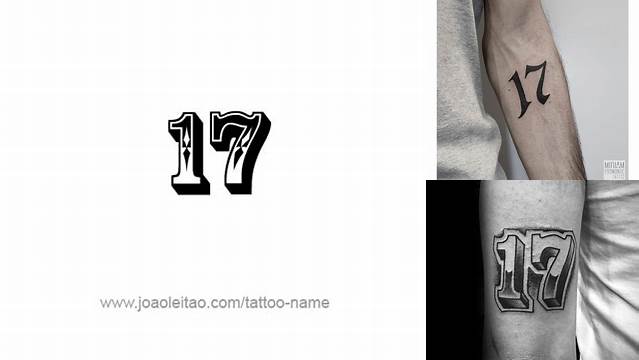
Number 17 Tattoo Designs: Font Ideas & Inspiration
Are you looking for the perfect number 17 tattoo design? Guys, you've come to the right place! Tattoos are a fantastic way to express yourself, and using numbers and fonts adds a layer of personal meaning and style. Number tattoos can symbolize significant dates, personal milestones, lucky numbers, or even just an aesthetic preference. The number 17, in particular, holds different meanings for different people, making it a unique choice for a tattoo. Let's dive into the world of fonts and number 17 tattoo designs and explore how you can create a meaningful and visually stunning piece of body art.
Why Choose a Number Tattoo?
Number tattoos are super versatile and carry deep personal significance. Think about it – numbers are everywhere, representing dates, times, scores, and so much more. When you get a number tattoo, you're not just inking a digit on your skin; you're embedding a memory, a belief, or a personal connection. The number 17 could represent a birthday, an anniversary, a lucky number, or even a significant date in your life. The beauty of a number tattoo lies in its simplicity and the depth of meaning it holds for you. Plus, adding a cool font can elevate your tattoo from simple to spectacular.
The Significance of the Number 17
The number 17 is often associated with independence, self-reliance, and a strong will. It can also symbolize new beginnings and the pursuit of dreams. In numerology, 17 is seen as a powerful number that combines the energies of 1 and 7. The number 1 represents leadership and initiative, while 7 signifies introspection and wisdom. Together, they create a number that embodies both action and thought. For many, choosing 17 as a tattoo number isn't just about aesthetics; it's about embracing these qualities and making a statement about their personal journey. Whether it's a lucky charm or a symbol of personal growth, the number 17 can hold profound meaning.
The Power of Font Choice
The font you choose for your number 17 tattoo can dramatically change its look and feel. A bold, classic font might convey strength and tradition, while a delicate, script font can add an elegant and personal touch. Think of the font as the voice of your tattoo – it's what speaks to the world about your style and personality. Different fonts evoke different emotions and associations, so choosing the right one is crucial. Whether you're into the edgy look of Gothic fonts or the clean lines of modern sans-serif fonts, the possibilities are endless. So, let's explore some of the most popular and impactful font styles for your number 17 tattoo.
Popular Font Styles for Number 17 Tattoos
Choosing the right font for your number 17 tattoo is essential to capturing the essence of your personal story and style. There are tons of options out there, each with its unique vibe and impact. Here are some popular font styles that can make your tattoo truly stand out:
Script Fonts: Elegance and Personal Touch
Script fonts are all about elegance and a personal touch. Think of beautiful, flowing calligraphy – that's the vibe we're talking about. These fonts are perfect for adding a sense of grace and sophistication to your number 17 tattoo. The cursive style creates a connection between the numbers, making it visually appealing and unique. Script fonts often evoke a sense of timelessness and can be particularly meaningful if you're commemorating a special date or person. Imagine a delicate, flowing script representing a birthdate or anniversary – it adds a touch of romance and sentimentality to your tattoo. However, keep in mind that intricate scripts might require a skilled tattoo artist to ensure the lines are clean and legible.
Gothic Fonts: Bold and Dramatic
If you're aiming for a bold and dramatic look, Gothic fonts are the way to go. These fonts are characterized by their strong, sharp lines and ornate details. They have a classic, almost medieval feel, which can add a sense of mystery and intrigue to your number 17 tattoo. Gothic fonts are perfect for those who want to make a statement and stand out from the crowd. They carry a powerful presence and can symbolize strength, resilience, and a touch of rebellion. A Gothic-style number 17 tattoo is sure to catch the eye and convey a sense of boldness and individuality. Just be sure the artist is experienced with Gothic fonts, as their complexity requires precision.
Sans-Serif Fonts: Modern and Minimalist
For a clean, modern aesthetic, sans-serif fonts are an excellent choice. These fonts are known for their simplicity and lack of decorative strokes (or serifs). They offer a minimalist look that's both stylish and timeless. A number 17 tattoo in a sans-serif font can look incredibly sleek and contemporary. These fonts are versatile and work well in various sizes and placements. They're perfect for those who appreciate understated elegance and want their tattoo to have a clean, crisp appearance. Sans-serif fonts often convey a sense of sophistication and can be a great option if you prefer a more subtle and modern tattoo design. Plus, their simplicity ensures legibility, which is always a bonus.
Serif Fonts: Classic and Timeless
Serif fonts, with their small decorative strokes at the end of each character, bring a classic and timeless quality to your tattoo. These fonts evoke a sense of tradition and sophistication, making them a great choice for a number 17 tattoo that you want to have a lasting impact. Serif fonts have a formal and elegant feel, which can be perfect for commemorating important dates or milestones. They add a touch of refinement to your tattoo, making it feel polished and professional. Imagine a classic serif font used to represent a significant year – it adds a layer of historical significance to your design. Serif fonts are versatile and can work well in various sizes, but larger sizes tend to showcase their intricate details best.
Handwritten Fonts: Personal and Unique
For a truly personal and unique touch, handwritten fonts are the way to go. These fonts mimic the look of actual handwriting, adding an intimate and bespoke feel to your number 17 tattoo. Handwritten fonts can range from elegant and cursive to playful and casual, allowing you to express your personality perfectly. Imagine getting the number 17 tattooed in your own handwriting or that of a loved one – it adds an extra layer of sentimental value. These fonts are perfect for those who want their tattoo to feel like a personal message or signature. However, keep in mind that handwritten fonts can vary greatly in legibility, so it's essential to choose a style that's clear and easy to read, especially for smaller tattoos.
Getting a number 17 tattoo is a deeply personal decision, and the design you choose should reflect your unique story and style. Whether you opt for a simple and minimalist design or a more elaborate piece incorporating symbols and imagery, the possibilities are endless. By exploring different font styles and considering various placement options, you can create a tattoo that's both visually stunning and deeply meaningful. Remember to research and choose the right tattoo artist to bring your vision to life with precision and artistry. So go ahead, guys, express yourselves and rock that number 17 tattoo with pride!